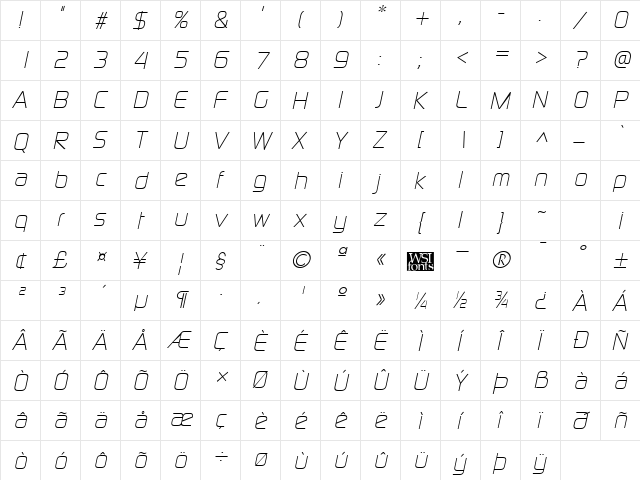
ModaerneLight Italic
Design Context for ModaerneLight Typeface
ModaerneLight is a composed and adaptable typeface that performs quietly and consistently across a wide range of design contexts. Its italic angle brings a sense of urgency and motion to the letterforms. The delicate stroke weight brings airiness and refinement to layouts.
Pro Tip: Try ModaerneLight for annotation and caption copy alongside an upright companion — the contrast in angle creates a dynamic but ordered typographic system.